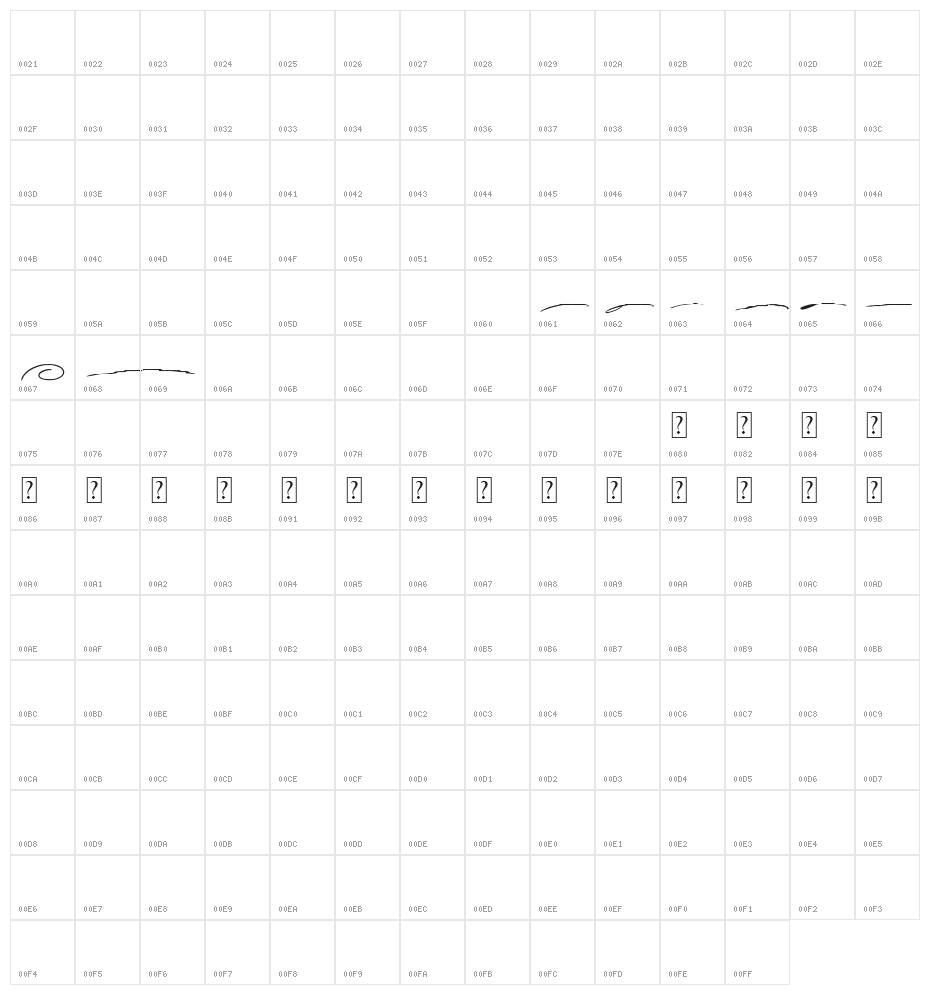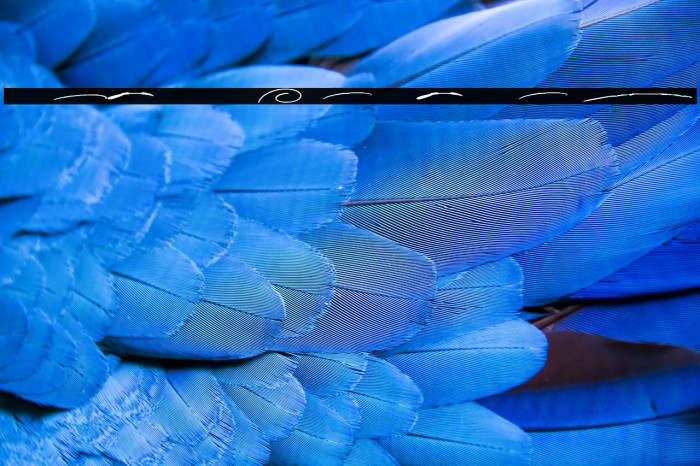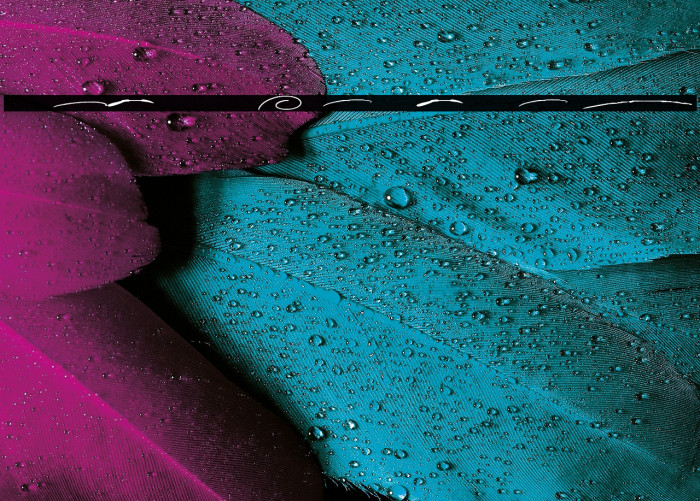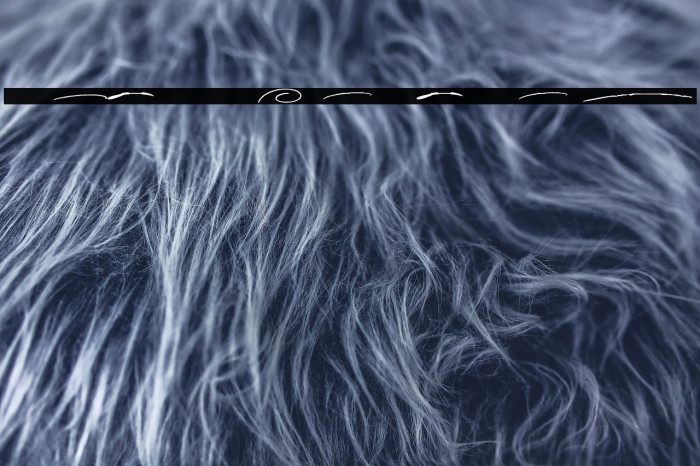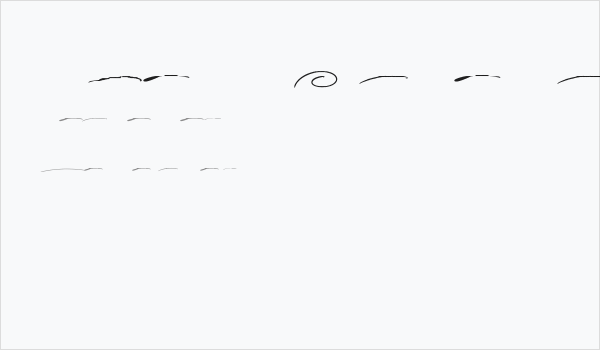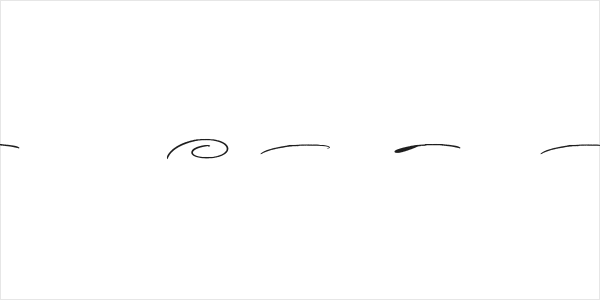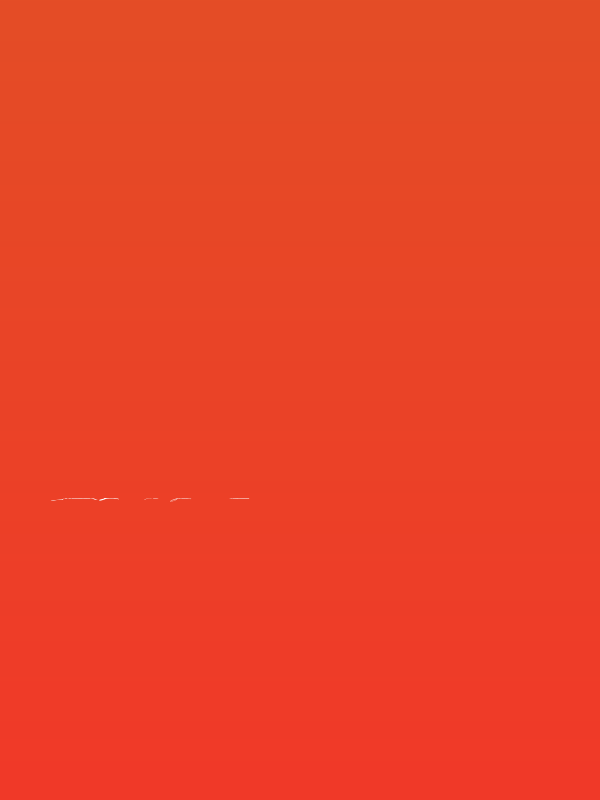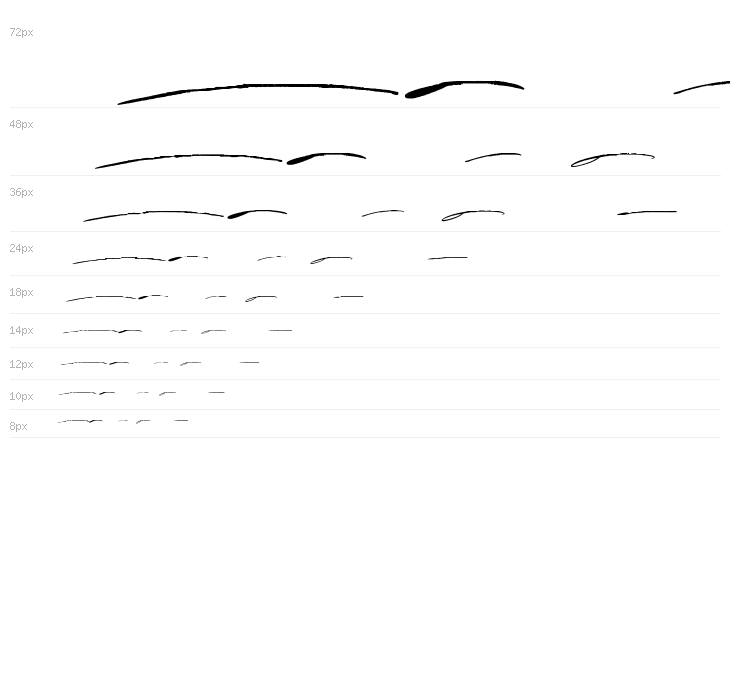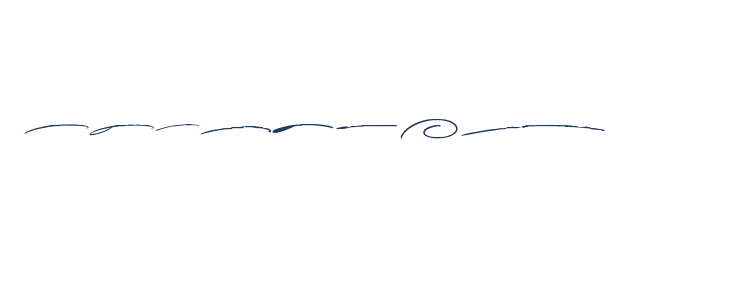
Anderson Signature Swash Font
Anderson Signature Swash Description
This font features elegant, flowing swashes that add a touch of sophistication and flair to any design. The strokes are smooth and continuous, creating a sense of movement and grace. Ideal for adding decorative elements to invitations, greeting cards, or branding materials, it exudes a sense of luxury and refinement. The swashes are carefully crafted to enhance the overall aesthetic without overwhelming the design, making it versatile for various creative projects.
| Use Case | Decorative elements, Invitations, Branding |
| Proposed Projects | Ideal for wedding invitations, greeting cards, branding, and decorative elements. |